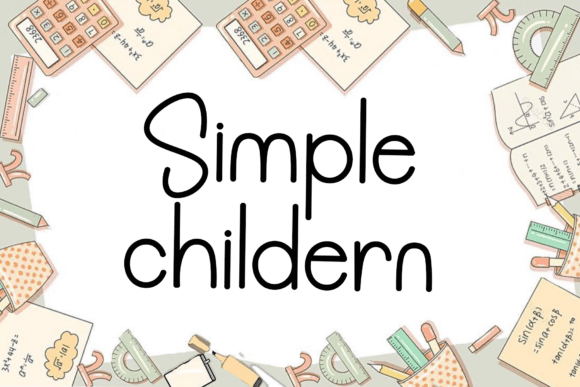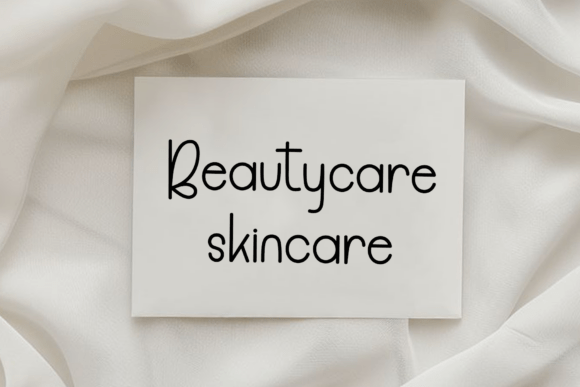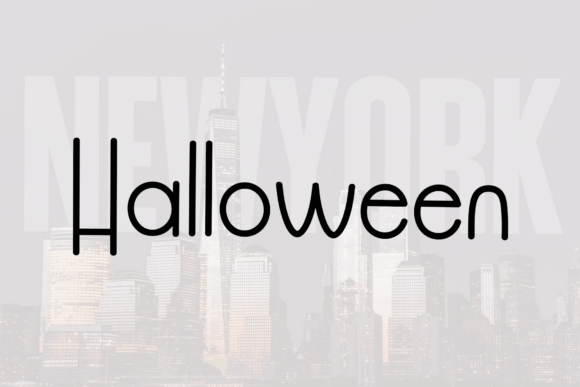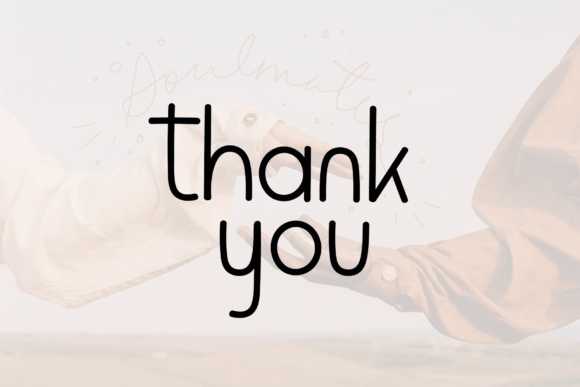
Introducing Analogue Font: The Casual Sans-Serif Game-Changer
Are you tired of using the same old fonts in your creative projects? Look no further than Analogue Font, a casual sans-serif font that’s sure to make your message impossible to ignore. With its unique blend of modern style and laid-back charm, Analogue is the perfect addition to any design or crafting project.
The Power of Analogue Font
Analogue Font is more than just a pretty face – it’s a powerful tool for communication. Its clean lines, simple shapes, and generous spacing make it easy to read and understand, even at small sizes. But what really sets Analogue apart is its personality. This font has a certain je ne sais quoi that’s hard to put into words, but it’s undeniably attention-grabbing.
What Makes Analogue Font So Special?
- Unique Character: Analogue Font has a distinct, laid-back vibe that’s perfect for designers and crafters who want to add a bit of personality to their work.
- Highly Legible: Despite its casual appearance, Analogue is incredibly easy to read, making it perfect for use in a wide range of applications, from headings and titles to body text.
- Versatile: Analogue Font is incredibly versatile, and can be used in everything from digital projects to print materials.
- Easy to Pair: Analogue pairs well with a wide range of other fonts, making it easy to create visually appealing combinations.
How to Use Analogue Font in Your Projects
So, how can you start using Analogue Font in your own projects? Here are a few ideas to get you started:
- Headings and Titles: Use Analogue Font to add a pop of personality to your headings and titles.
- Body Text: Analogue’s high legibility makes it a great choice for body text, especially in digital applications.
- Signage and Posters: Analogue Font is a great choice for signage and posters, where its bold, attention-grabbing style can really shine.
- Branding and Identity: Use Analogue Font to create a unique and memorable brand identity that will set you apart from the competition.
Tips for Getting the Most Out of Analogue Font
Here are a few tips for getting the most out of Analogue Font:
- Experiment with Different Sizes: Analogue Font looks great at a wide range of sizes, so don’t be afraid to experiment and find the perfect fit for your project.
- Play with Color: Analogue Font looks great in a wide range of colors, so don’t be afraid to get creative and try out different color schemes.
- Pair it with Other Fonts: Analogue Font pairs well with a wide range of other fonts, so don’t be afraid to experiment and find the perfect combination.
In conclusion, Analogue Font is a game-changer for designers and crafters who want to add a bit of personality to their projects. With its unique blend of modern style and laid-back charm, Analogue is the perfect choice for anyone looking to make their message impossible to ignore. So why wait? Add Analogue Font to your creative toolkit today and start enjoying the results!
Analogue Font at a Glance
| Font Style: | Casual Sans-Serif |
| Legibility: | Highly Legible |
| Versatility: | Highly Versatile |
| Pairing: | Easily Pairs with Other Fonts |